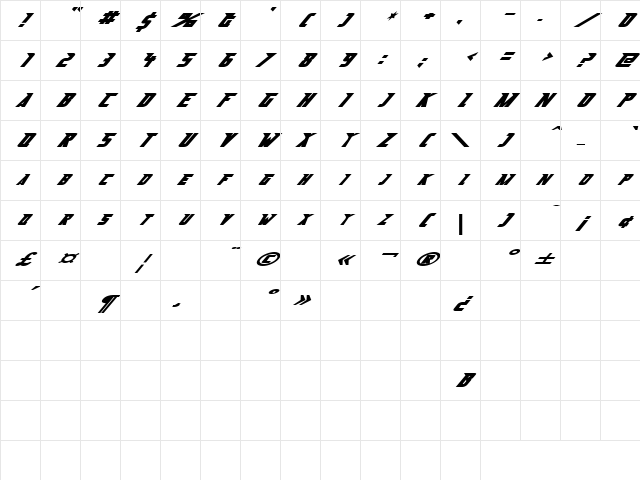
Abberancy Regular Free Font
Abberancy Regular
Design Context for Abberancy
Abberancy is a composed and adaptable typeface that performs quietly and consistently across a wide range of design contexts.